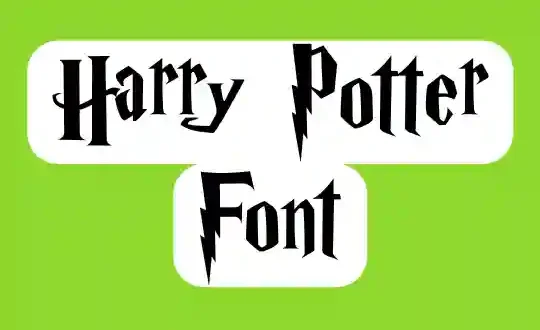
The Harry Potter Font captures the enchanting world of wizards, magic, and Hogwarts, bringing the iconic lettering from the Harry Potter series to life.
The most recognized typeface associated with the franchise is Harry P, created by Phoenix Phonts.
It was inspired by the logo used in the film series. This font is perfect for replicating the mystical vibe of the Wizarding World. Fonts like Lumos, Roff Display Font, and others also fall into the fantasy and display font category, ideal for similar uses.
Usage of Harry Potter Font
This highly versatile font is often associated with projects involving fantasy themes, book designs, movie posters, and more.
Its distinctive style makes it a favourite for fans recreating Harry Potter-inspired art and designs using Photoshop, Canva, and text generator tools.
Harry Potter fans frequently use digital content like fan art, memes, and social media posts. Text generator tools like FontMeme allow you to create Harry Potter-style graphics effortlessly.